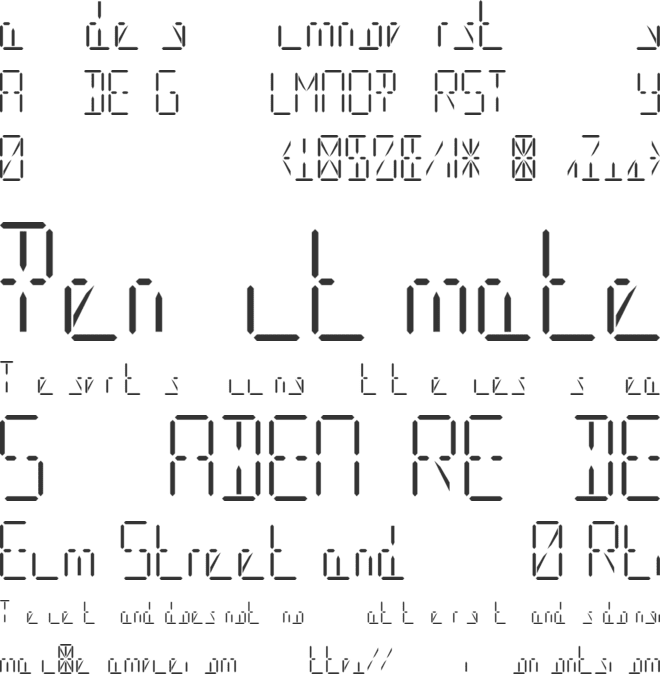
TOTALLY SEGMENTED one more font, making ten in total. I have not been creating many typefaces of late however I decided to try to complete this one, I have only just finished is now available for sale. Stupid is as stupid does sitting at my PC on the hottest day on record in the UK it hit 40.2 degrees centigrade in Heathrow this afternoon, hence the Sun icon added to the flag, and yes there are no prizes for guessing what the barcode says!
I started this last year in 2021 however could never get the lowercase to work on the limited 14 segment display that I had set myself, this idea of constraint was also used on my Culliand Diamond typeface based on it's unique carbon lattice structure also available on Etsy @ https://etsy.me/3RKDJFy